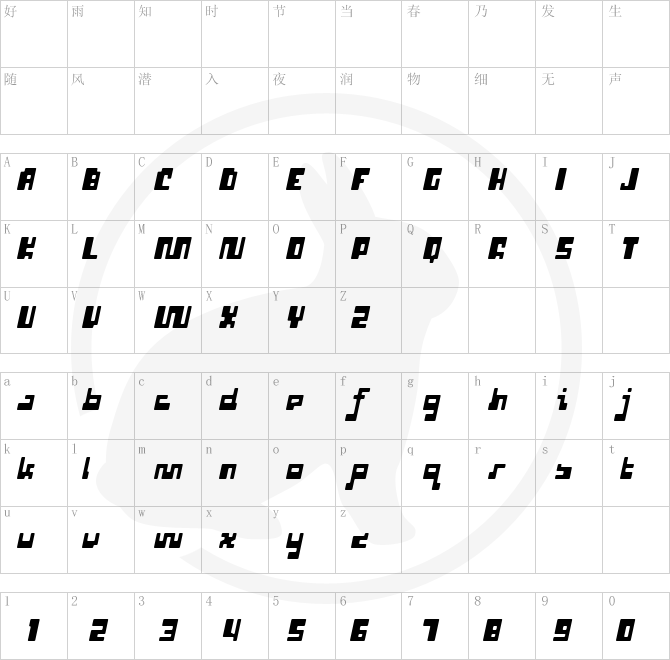
- Font Name:P22 Cusp Round Slant
- Subfamily:Round Slant
- Subfamily:P22typefoundry,Inc.: P22Cusp-Round: 2001
- Full Name:P22 Cusp Round Slant
- PostScript:P22Cusp-RoundSlant
P22-Cusp-Round-Slant.ttf is a very beautiful artistic font, P22-Cusp-Round-Slant.ttf is widely used in the design and printing of various books and pictures,P22-Cusp-Round-Slant.ttf has a strong visual impact,P22-Cusp-Round-Slant.ttf is a commonly used font in newspapers, magazines and books, and is used in posters, e-commerce Poster design, store design, logo design, font design and other fields.P22-Cusp-Round-Slant.